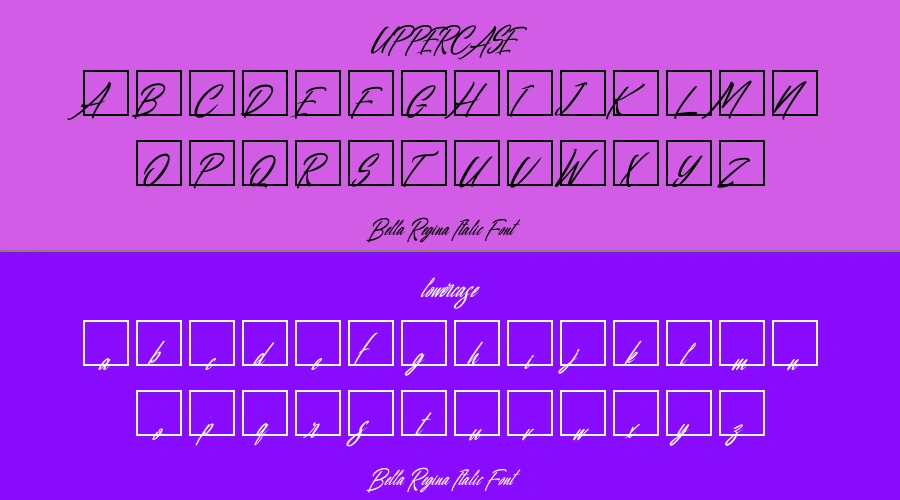
About Bella Regina Italic Font
Bella Regina Italic Font represents a sophisticated approach to type design, balancing brush influence with accuracy. Perfect for formal announcements, this font family showcases impressive adaptability and technical sophistication throughout its character set. Designers appreciate its versatility and reliability.
Designers will appreciate nuanced touches including dynamic forms and swash characters, adding sophistication to any project. These features become apparent in campaign headers, where emotional response matters most. The careful treatment of ear formation and lifestyle alignment ensures optimal performance.